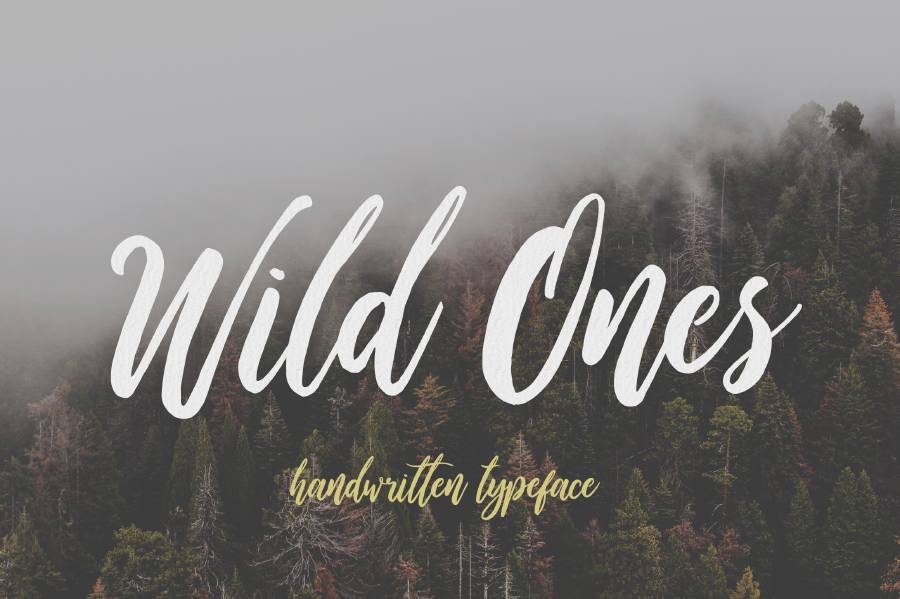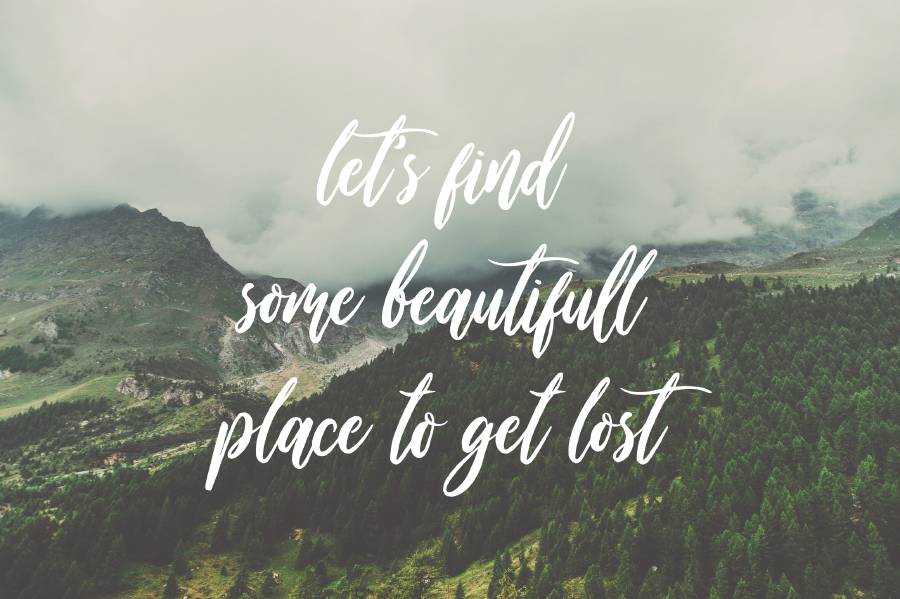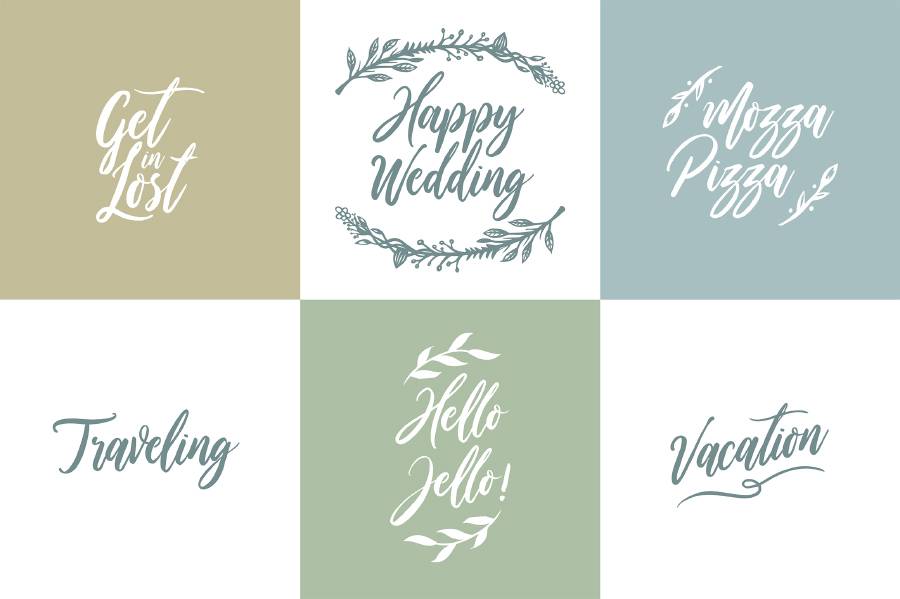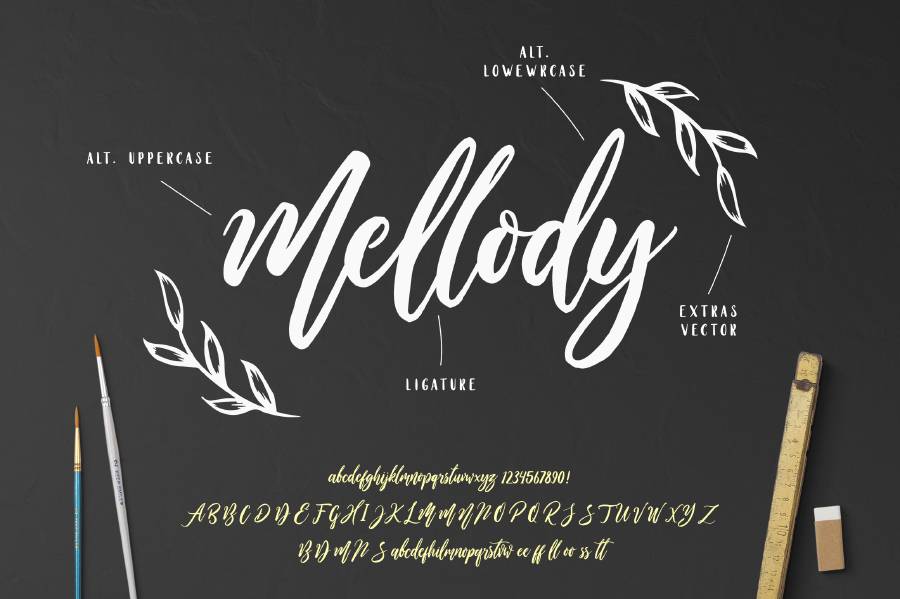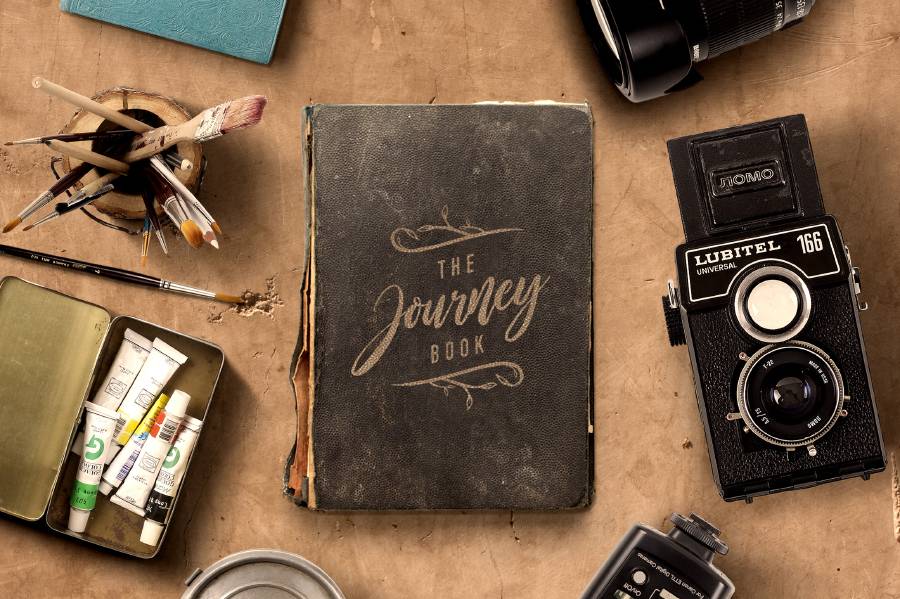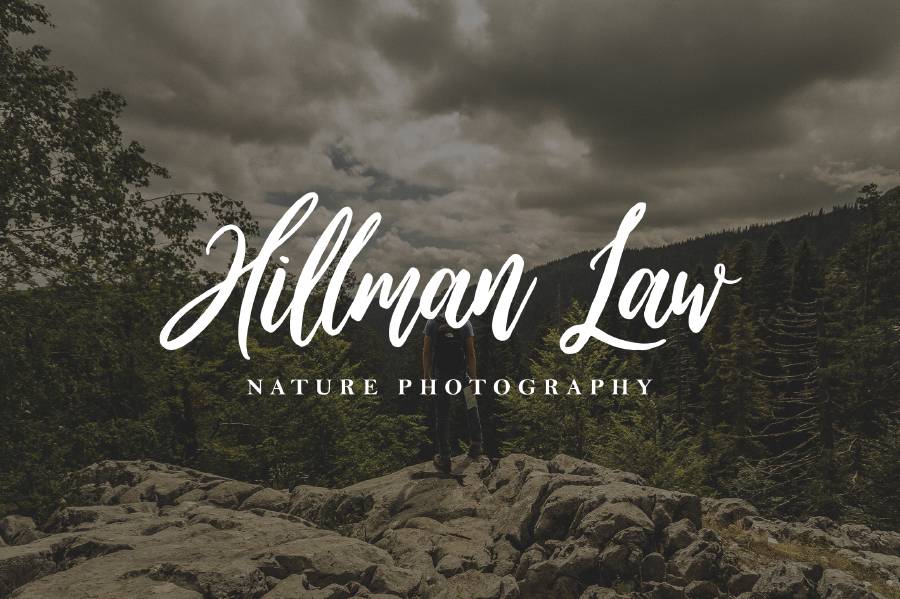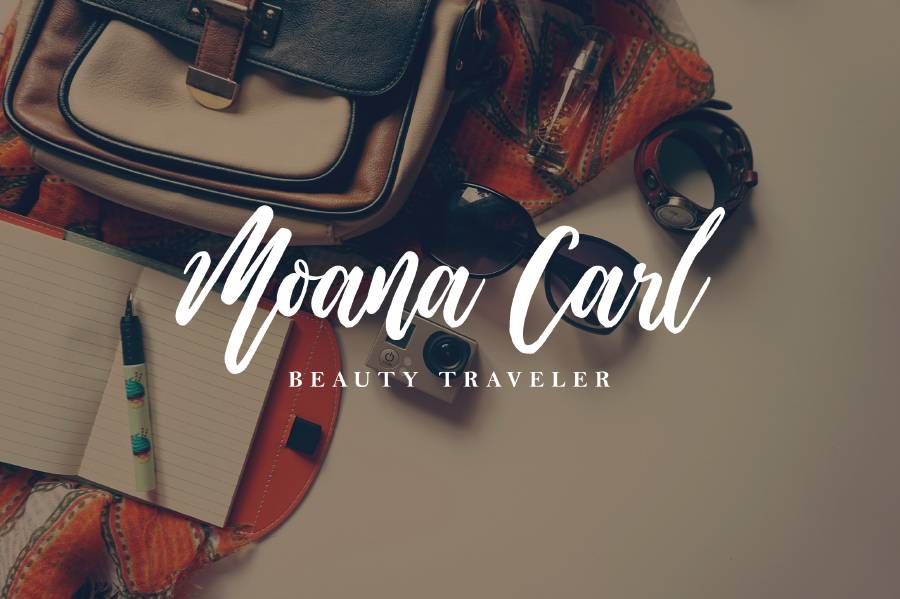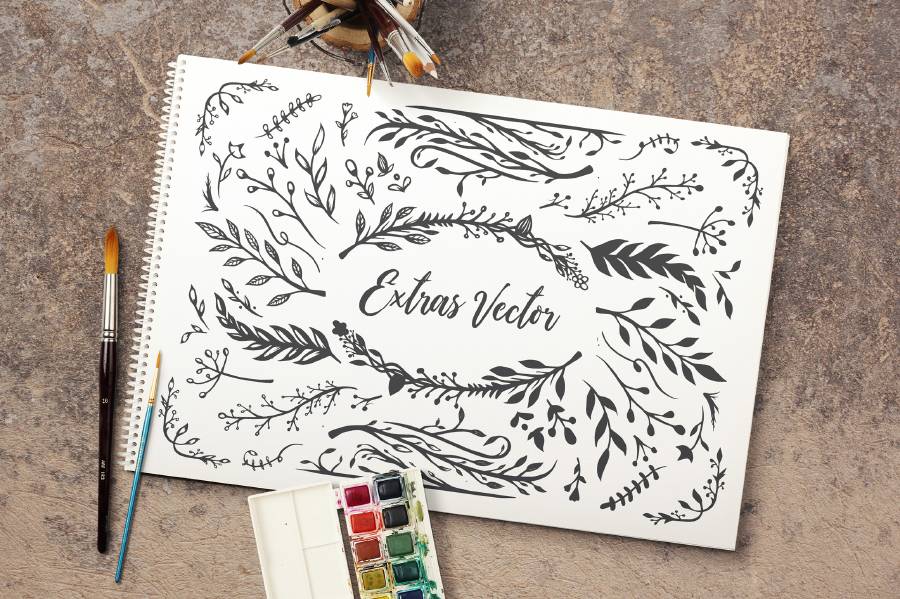
Wild Ones Demo is a lively script font with a bold, brushstroke style that conveys energy and creativity. Its flowing letterforms and varying stroke widths make it perfect for adding a personal, artistic touch to invitations, branding, and headlines where a vibrant, handwritten feel is desired. This font works best in expressive, informal designs that seek to capture attention with a dynamic and friendly personality.